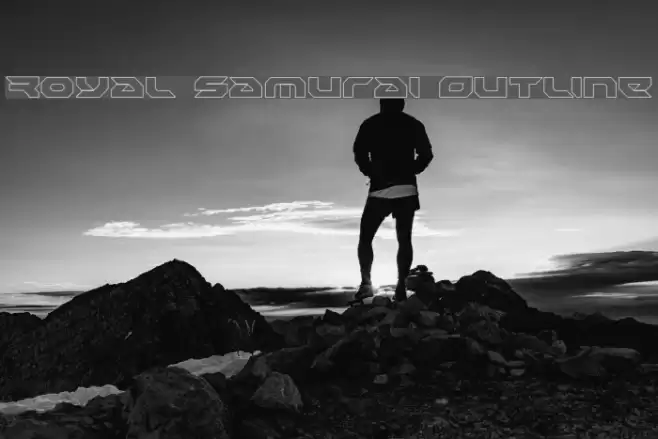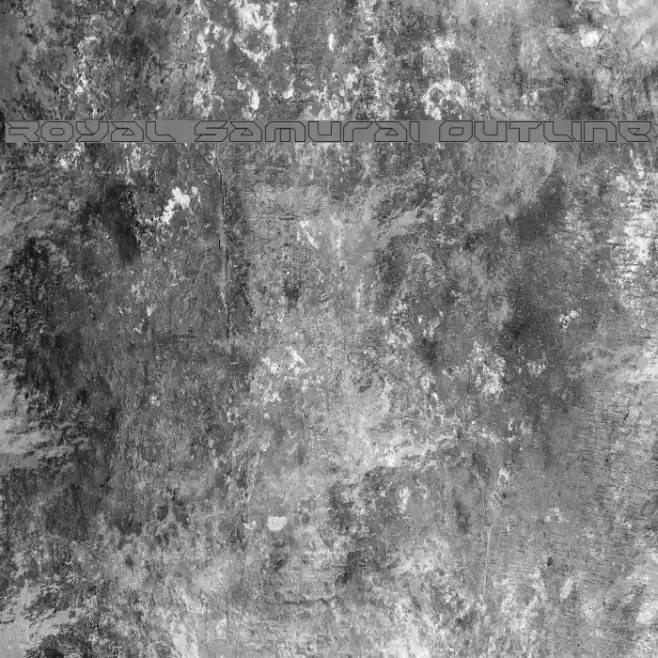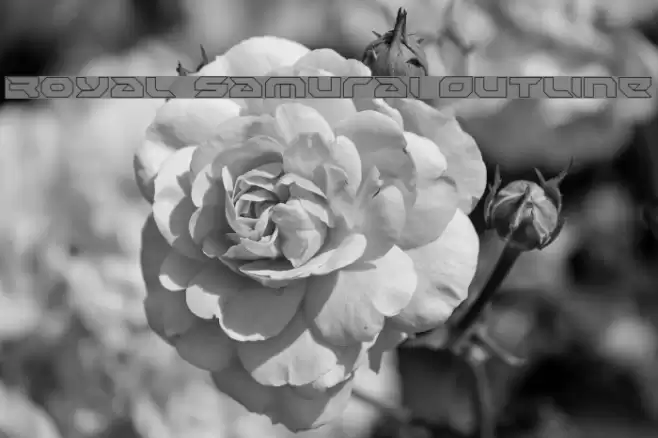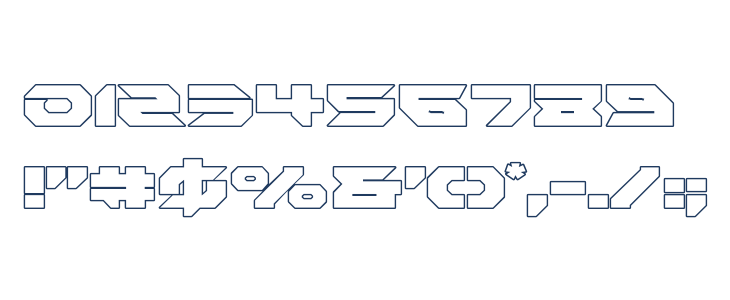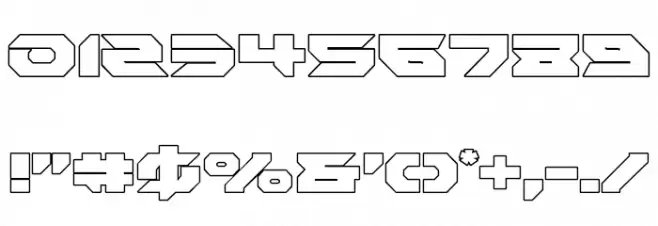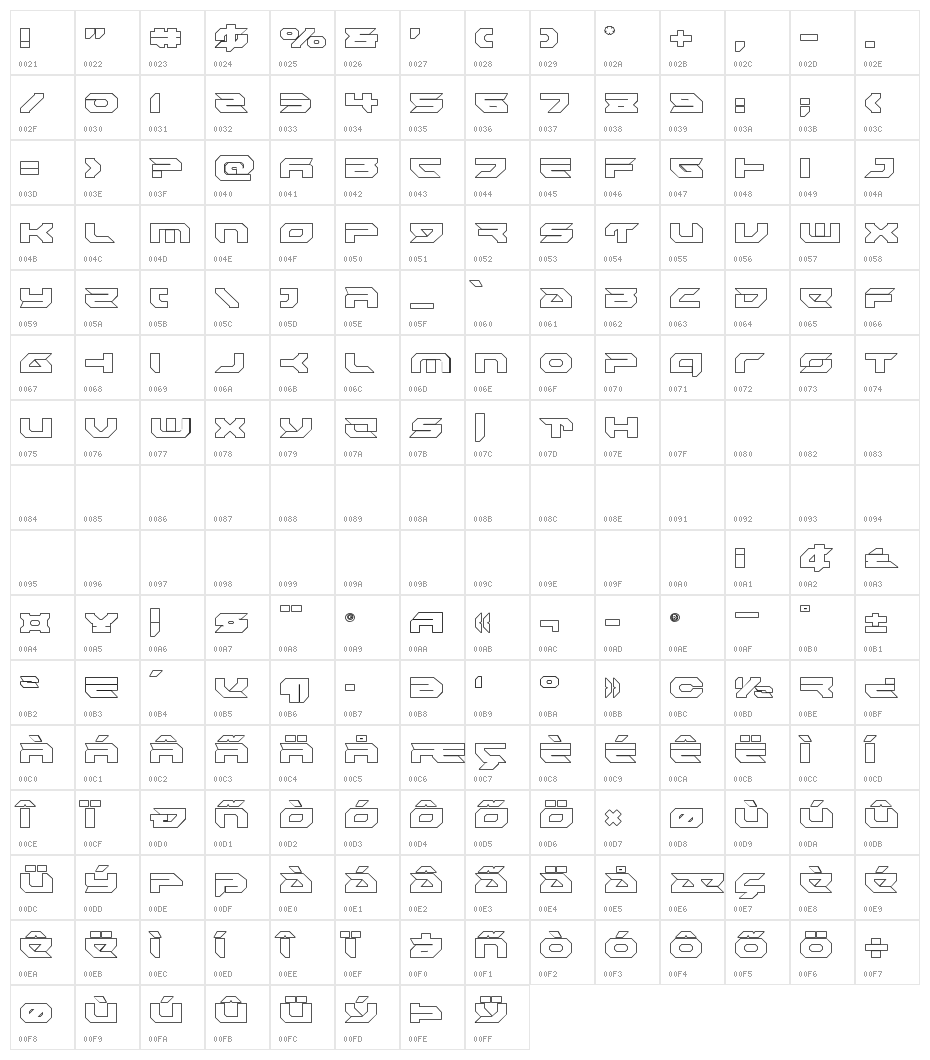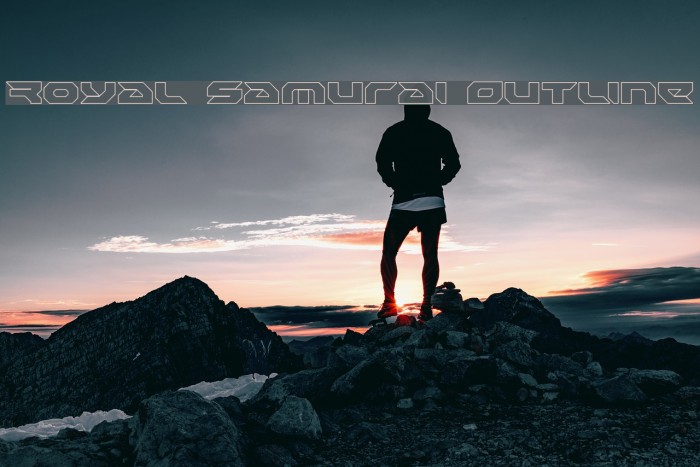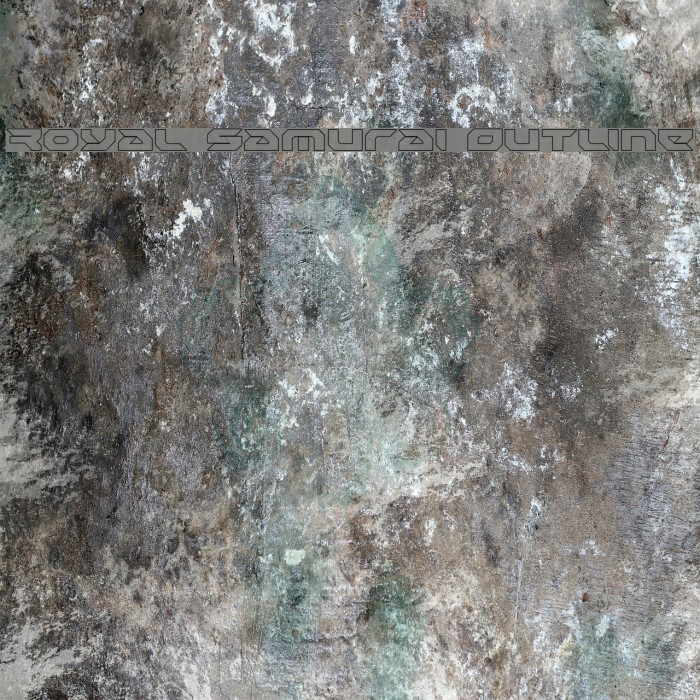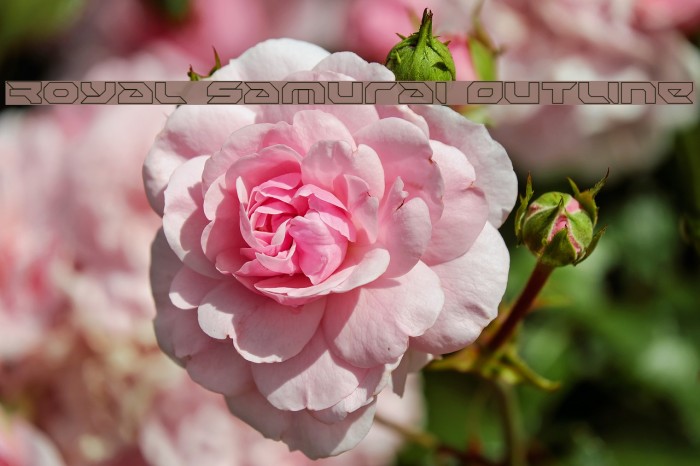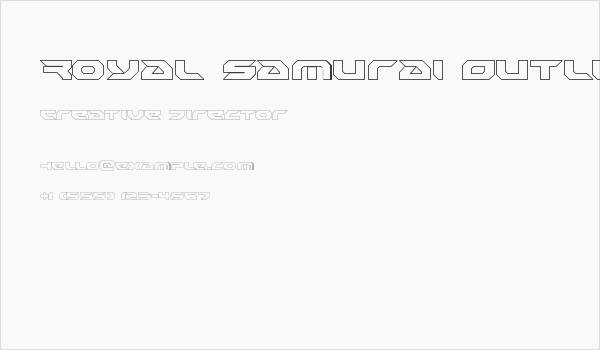
Royal Samurai Outline Font
Royal Samurai Outline Description
This font features a bold, geometric outline style with sharp angles and a futuristic aesthetic. The characters are constructed with a consistent line thickness, creating a uniform and cohesive look. The design is reminiscent of digital or sci-fi themes, with a modern twist that makes it stand out. Each letter and number is distinct, with angular cuts and a blocky appearance that adds to its unique character. The font is highly stylized, making it ideal for projects that require a strong visual impact.
A bold, geometric outline font with a futuristic, sci-fi aesthetic from Uncategorized fonts.
- Proposed Projects: Ideal for video game titles, sci-fi movie posters, tech branding, and futuristic-themed designs.
- Overall Style: Futuristic, Modern